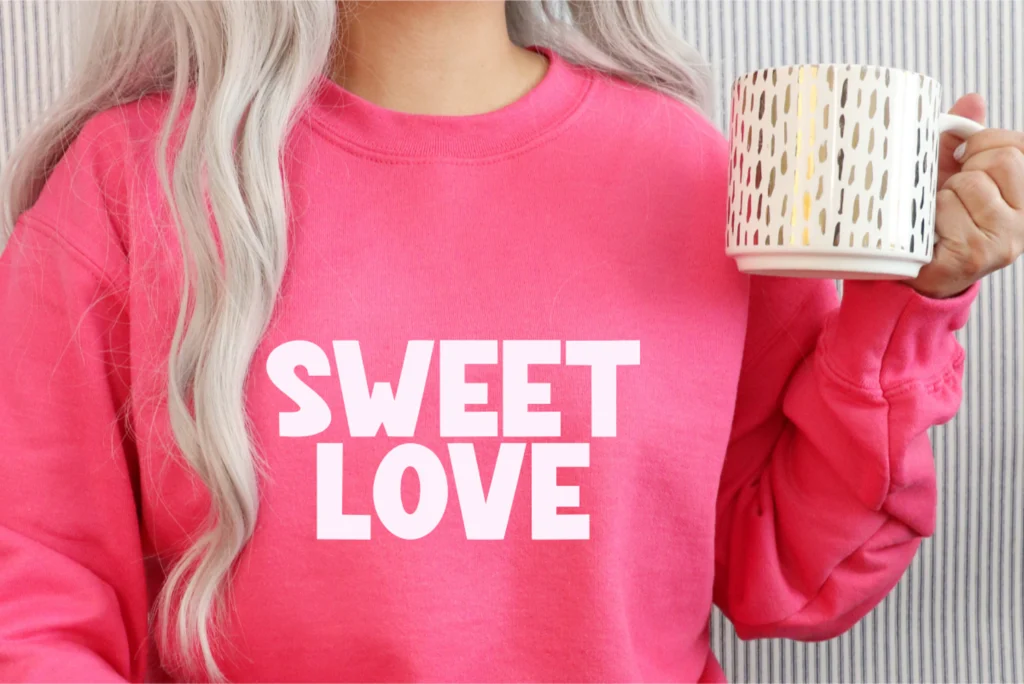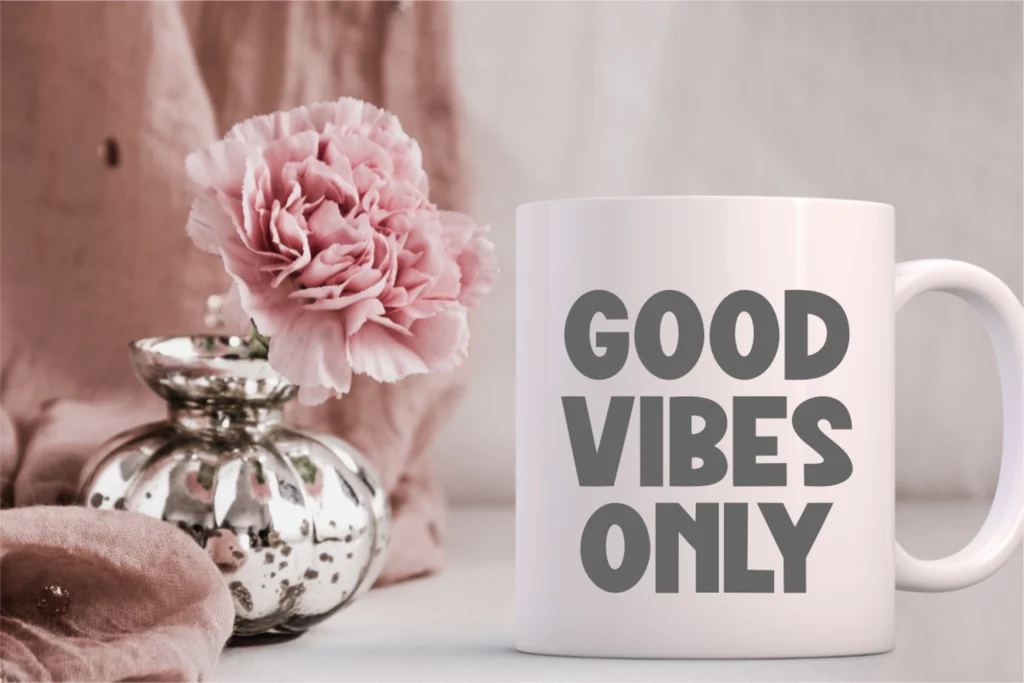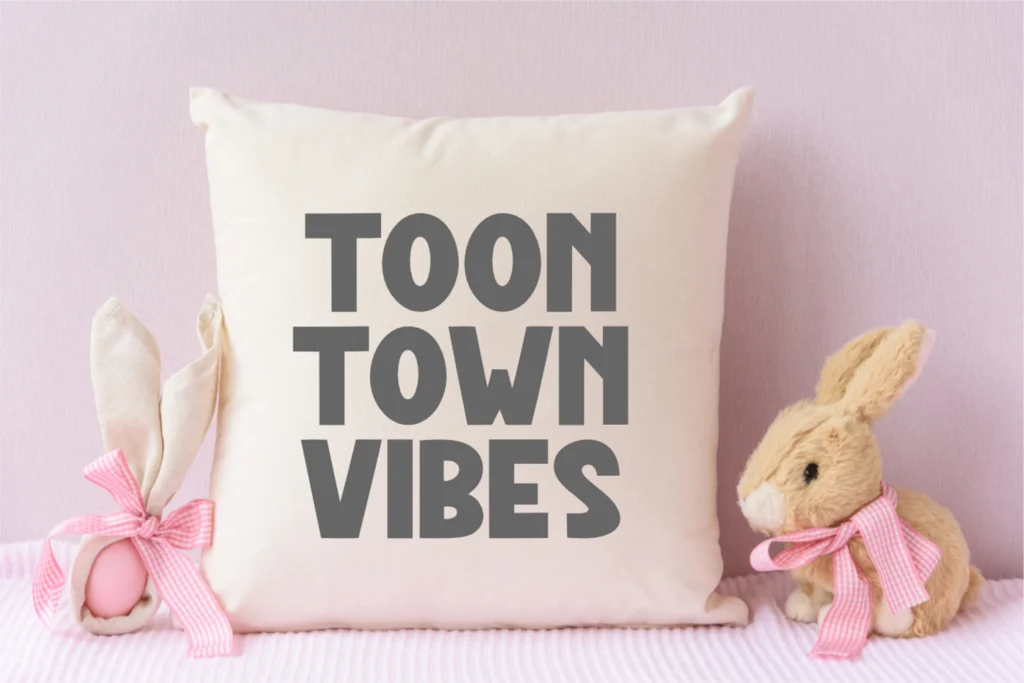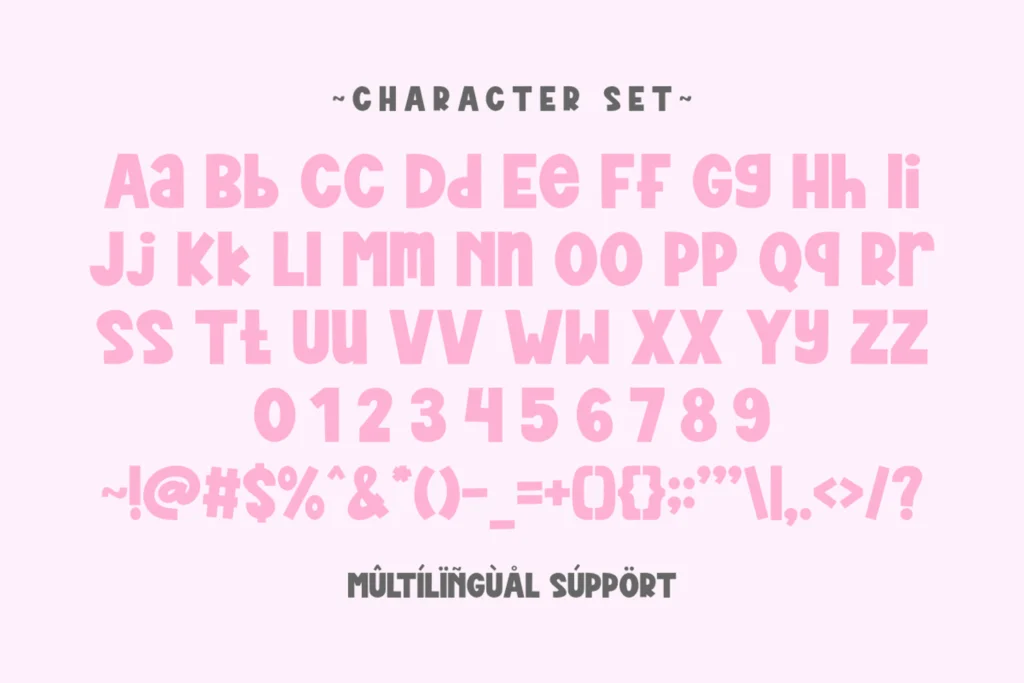
Cartoon Vibes is a fun and bold sans serif font that brings cartoons to life. With its energetic and stylish design, it adds excitement to any project. This creative font is especially great for kids’ books, comics, posters, social media graphics, and more. Whether you’re working on a school project or branding a product, Cartoon Vibes helps your message pop with playful charm.
As a display font, Cartoon Vibes stands out with thick, eye-catching letters and a unique 3D shadow effect. These design features make it perfect for grabbing attention and guiding the viewer’s eyes. It’s a great choice for projects that need to be both creative and visible, like advertising prints, event flyers, or logo designs.
With its bright and cheerful look, Cartoon Vibes also has a retro font vibe that brings back a sense of nostalgia and fun. It’s ideal for joyful, high-energy designs where you want to spread positivity. Whether you’re creating a children’s party invitation or a vintage-style poster, this font adds just the right touch of character and charm.